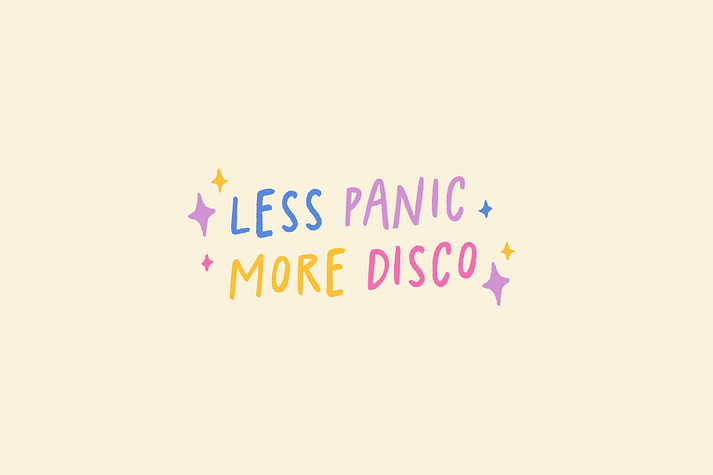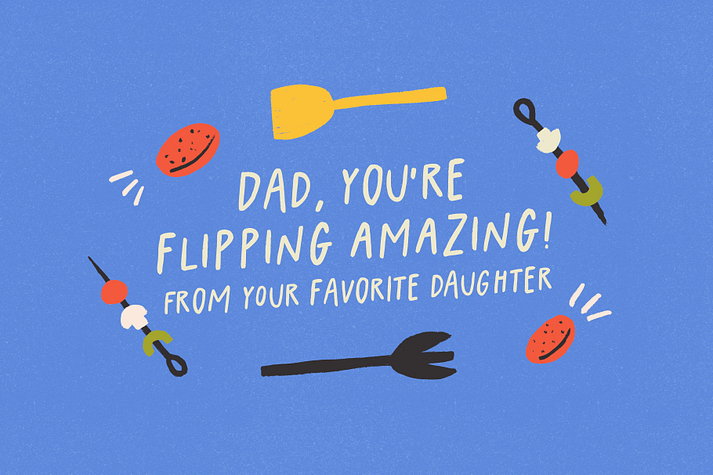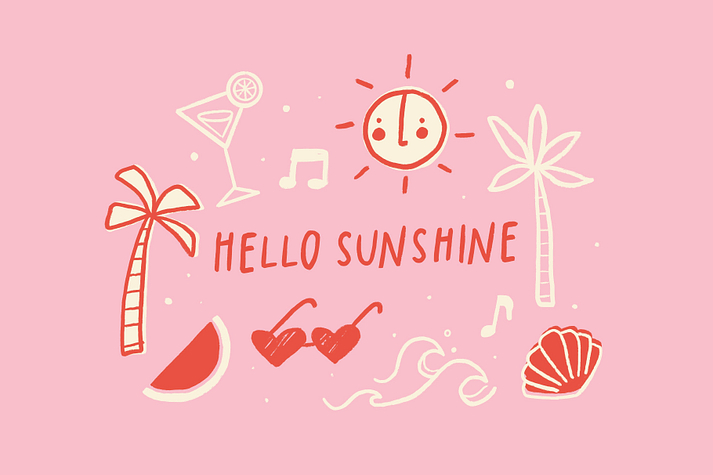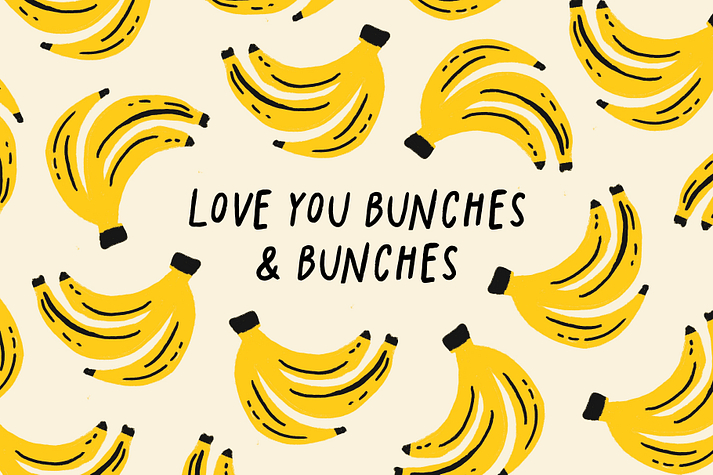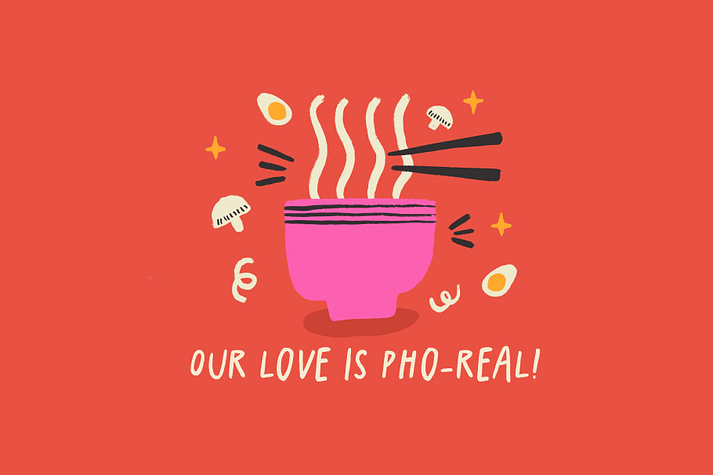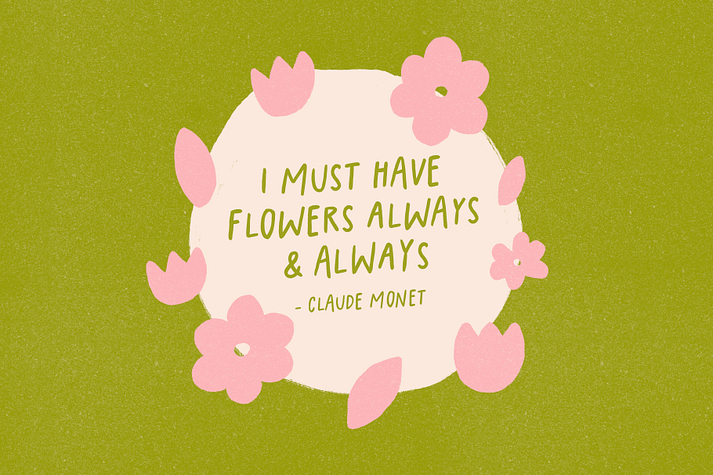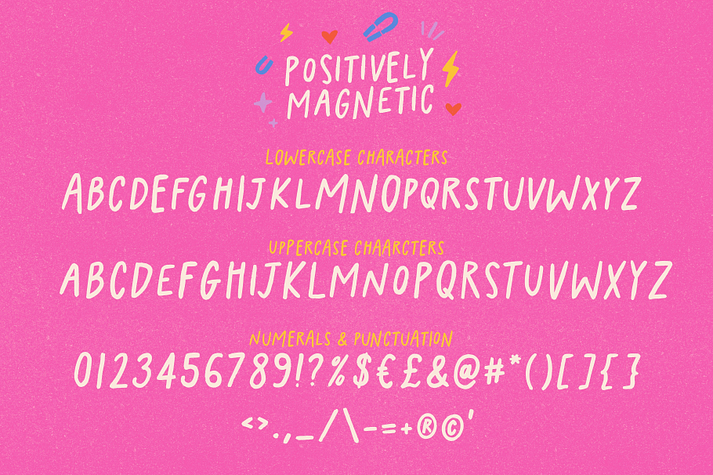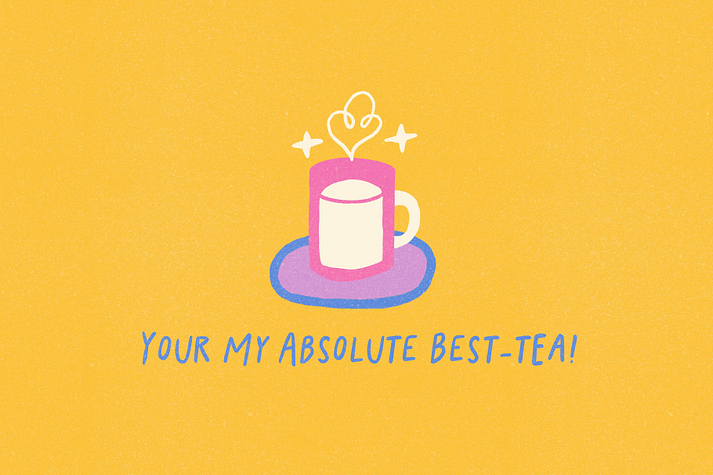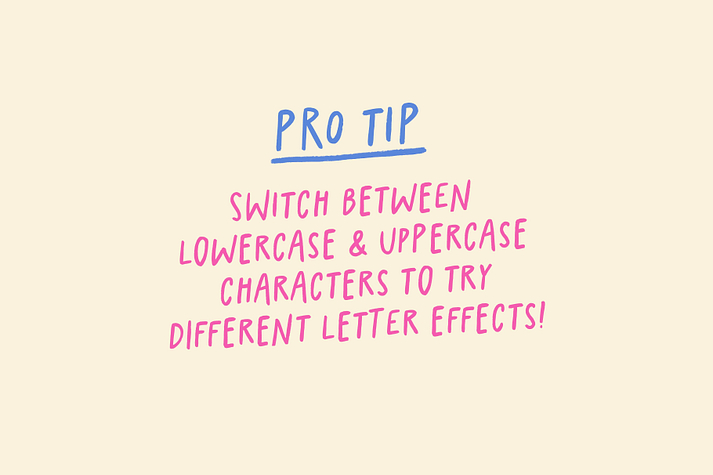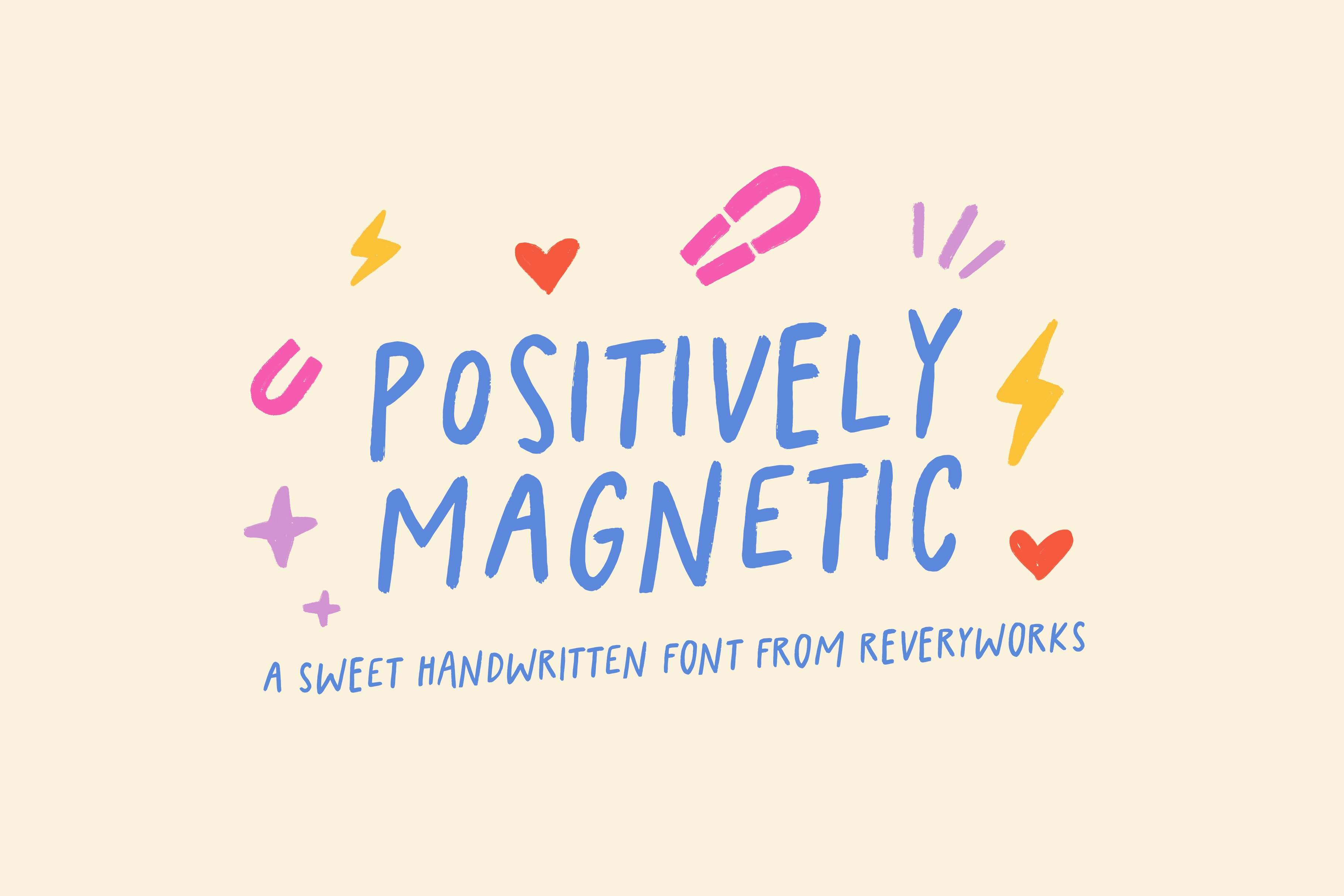
Positively Magnetic
Positively Magnetic is a font family. This typeface has two styles and was published by ReveryWorks.
Say hello to Positively Magnetic! A sweet little handwritten font perfect for all your sweet a quirky creations! Use it to create greeting cards, quotes, pair it with illustrations, minimal design, label design your name it!
Switch between uppercase and lowercase characters to try different variations of the characters and achieve a natural handwritten look.
A bolder version is included! :)